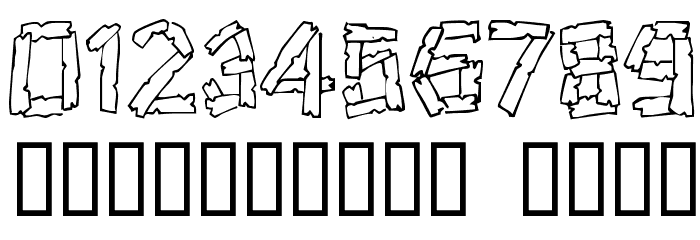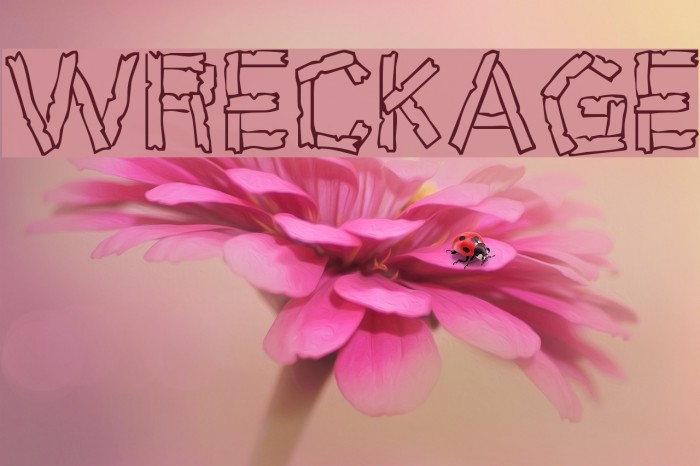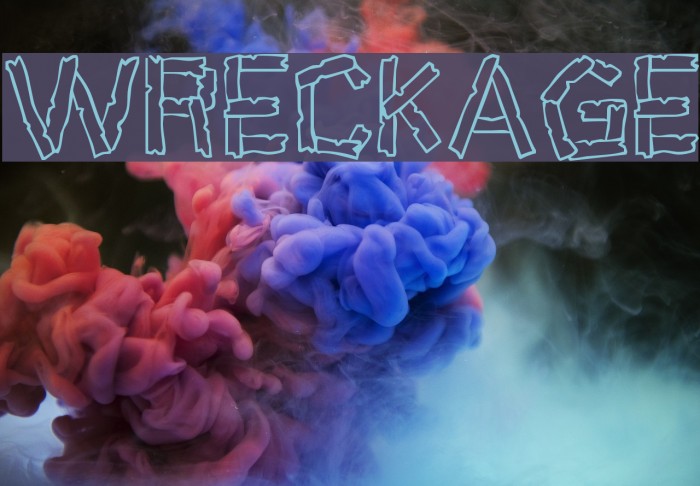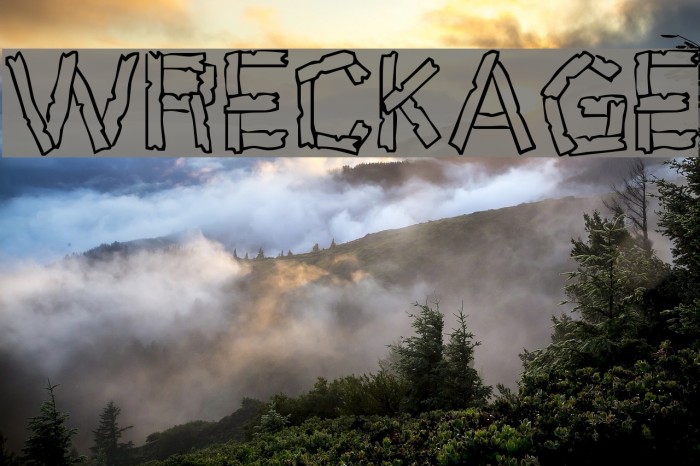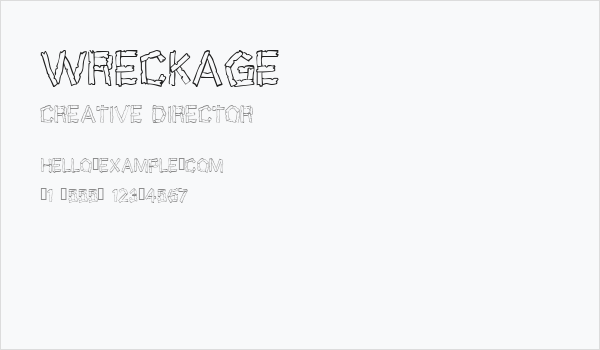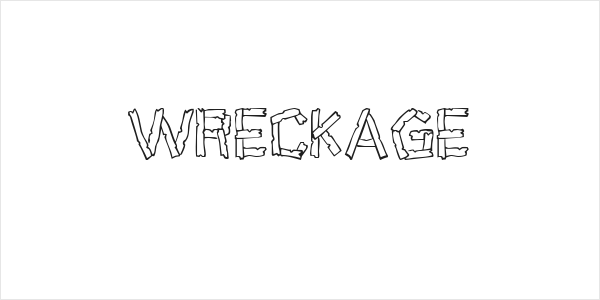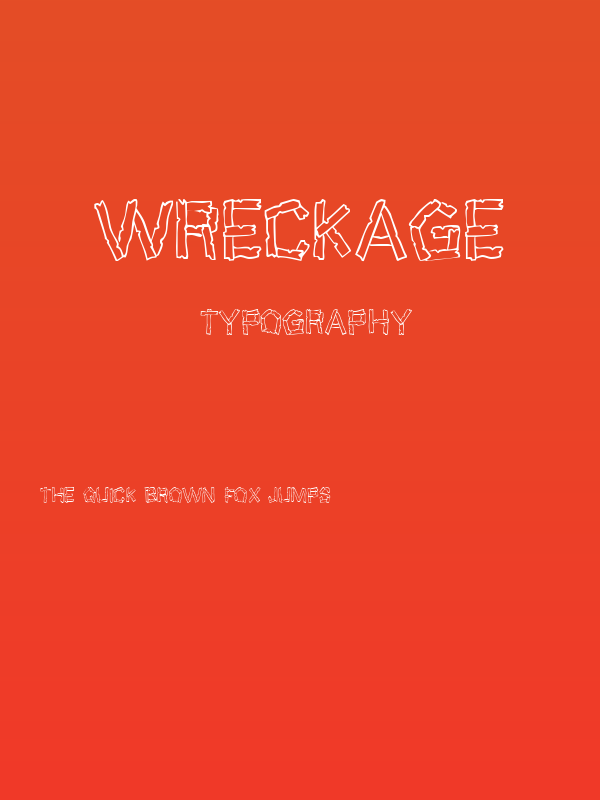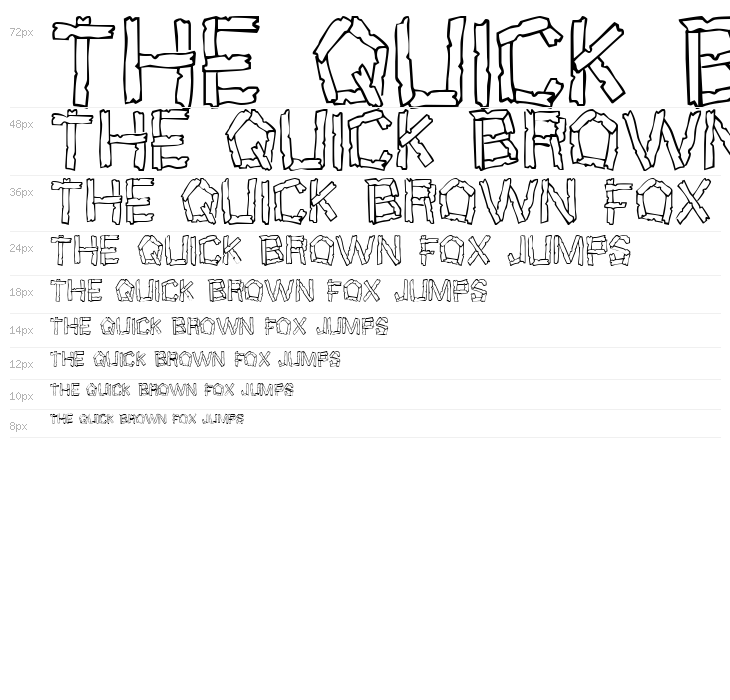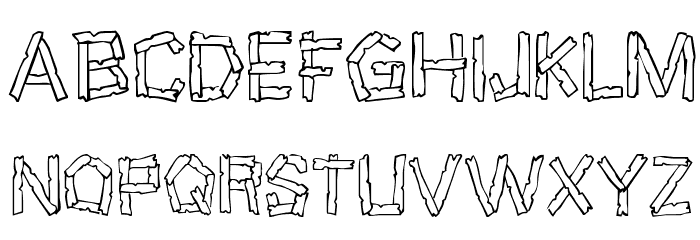
Wreckage Font
Wreckage Description
This font features a unique, fragmented design that resembles shattered or broken pieces. Each character is constructed with jagged edges and irregular shapes, giving it a chaotic and distressed appearance. The style is reminiscent of debris or wreckage, with an artistic flair that makes it stand out. The uppercase and lowercase letters maintain a consistent theme, while the numbers and special characters follow the same fragmented aesthetic. This font is ideal for projects that require a bold, unconventional look.
| Proposed Projects | Ideal for use in graphic design projects that require a bold, edgy look, such as posters, album covers, or video game titles. |